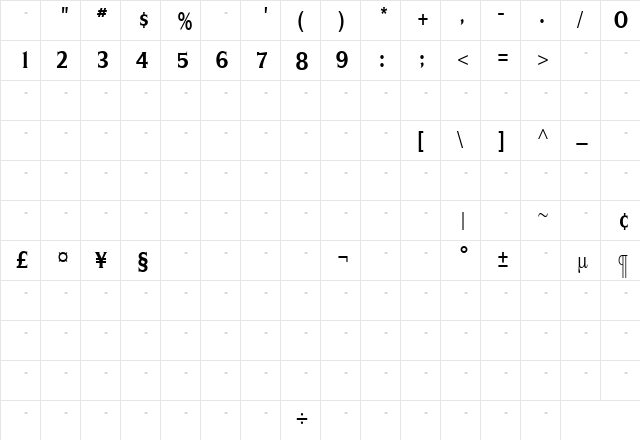
SilveradoBoldCondensedTab Roman Font Preview
Design Context for SilveradoBoldCondensedTab Typeface
SilveradoBoldCondensedTab takes a measured approach to typography — its balanced proportions and neutral character make it a reliable workhorse for both digital and print work. Its bold stroke weight gives it real presence on the page. Its narrow stance lets it pack a punch even in space-constrained designs.